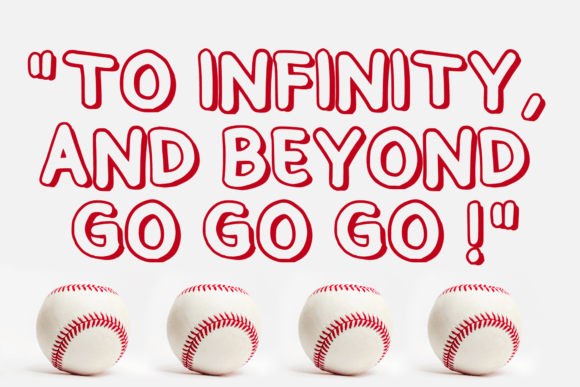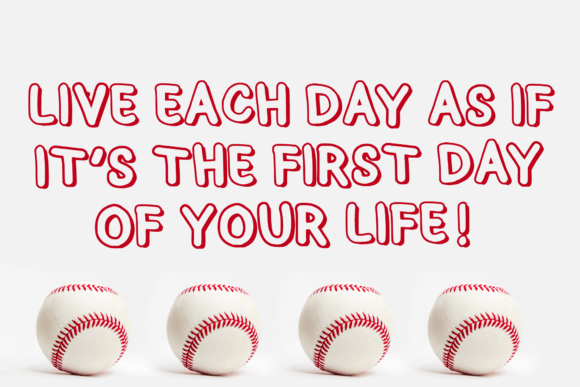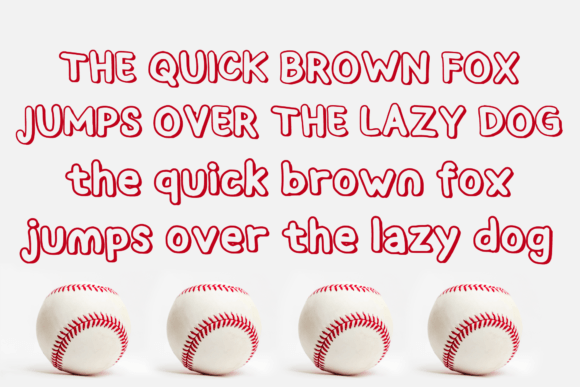
Introducing Baseball Baby Font: The Perfect Addition to Your Design Arsenal
Are you a designer, crafter, or DIY enthusiast looking for a font that can add a touch of playfulness and sportiness to your projects? Look no further than the Baseball Baby font! This fun and kids-friendly display font is perfect for a wide range of applications, from t-shirts and kids’ book designs to greeting cards, stickers, and posters.
What Makes Baseball Baby Font So Special?
Baseball Baby font is a versatile and charming typeface that is sure to capture the hearts of designers and crafters alike. Its incredibly versatile style makes it suitable for a wide range of projects, from casual and playful to bold and eye-catching. Whether you’re creating a design for a kids’ party, a sports-themed event, or just something that needs a bit of whimsy, Baseball Baby font is the perfect choice.
Endless Possibilities with Baseball Baby Font
One of the best things about Baseball Baby font is its incredible flexibility. Here are just a few ideas to get you started:
- T-shirts and apparel: Add a sporty touch to your t-shirt designs with Baseball Baby font. It’s perfect for creating fun and playful designs that kids and adults will love.
- Kids’ book designs: Create engaging and interactive kids’ books with Baseball Baby font. Its playful style is sure to delight young readers.
- Greeting cards: Add a personal touch to your greeting cards with Baseball Baby font. It’s perfect for birthdays, holidays, and special occasions.
- Stickers and decals: Create fun and colorful stickers and decals with Baseball Baby font. They’re perfect for decorating laptops, water bottles, and more.
- Posters and flyers: Create eye-catching posters and flyers with Baseball Baby font. It’s perfect for promoting events, sales, and more.
Why Choose Baseball Baby Font?
So why choose Baseball Baby font over other fonts? Here are just a few reasons:
- Unique and playful style: Baseball Baby font has a one-of-a-kind style that is sure to stand out from the crowd.
- Kids-friendly: This font is perfect for designs that are geared towards kids. Its playful style is sure to delight young readers and viewers.
- Versatile: Baseball Baby font can be used for a wide range of projects, from casual and playful to bold and eye-catching.
- Easy to read: Despite its playful style, Baseball Baby font is easy to read and understand, making it perfect for designs that need to communicate a message.
Tips for Using Baseball Baby Font
Here are a few tips for getting the most out of Baseball Baby font:
- Experiment with colors: Baseball Baby font looks great in a wide range of colors. Experiment with different colors to find the perfect combination for your design.
- Pair with other fonts: Baseball Baby font pairs well with other fonts. Try pairing it with a bold font for a striking contrast.
- Use it sparingly: While Baseball Baby font is playful and fun, it can be overwhelming if used too much. Use it sparingly to create a focal point in your design.
Baseball Baby font is a fun, sporty, and kids-friendly display font that is perfect for a wide range of projects. Its incredibly versatile style makes it suitable for designs that need a casual touch. Whether you’re a designer, crafter, or DIY enthusiast, Baseball Baby font is a great addition to your design arsenal. So why wait? Download Baseball Baby font today and start creating your own fun and playful designs!